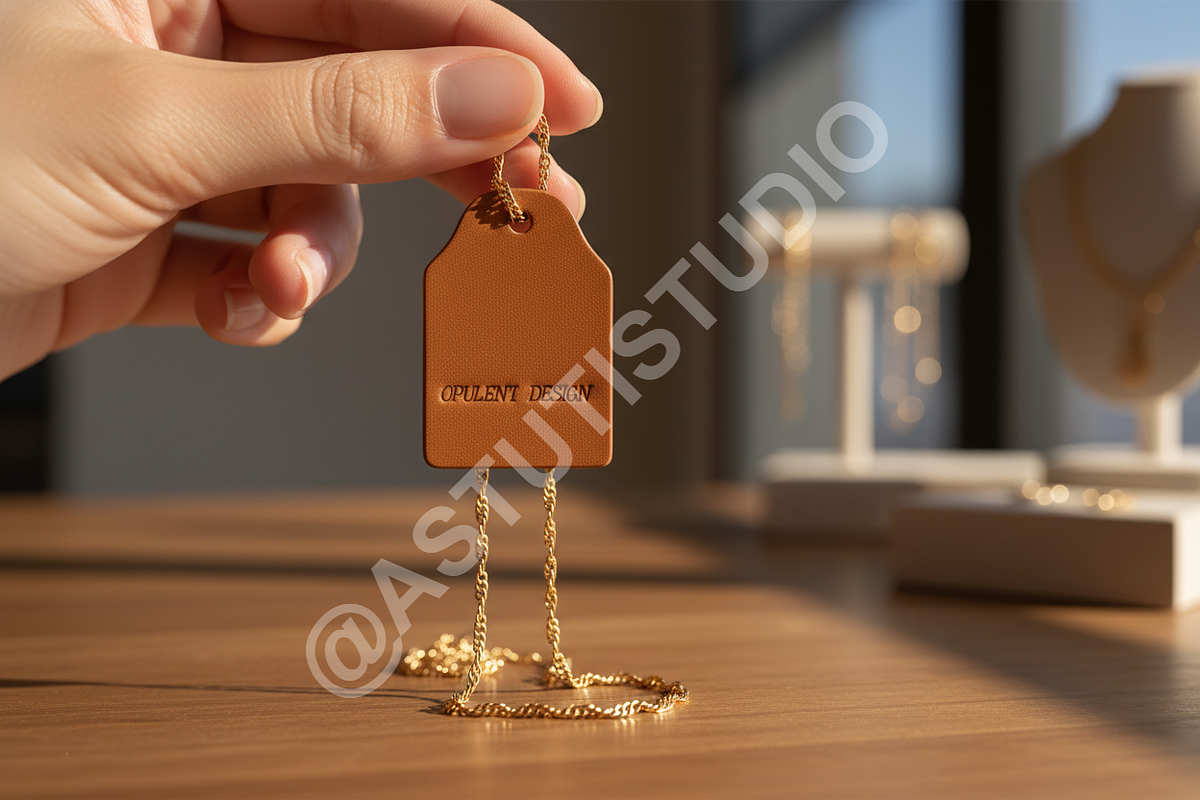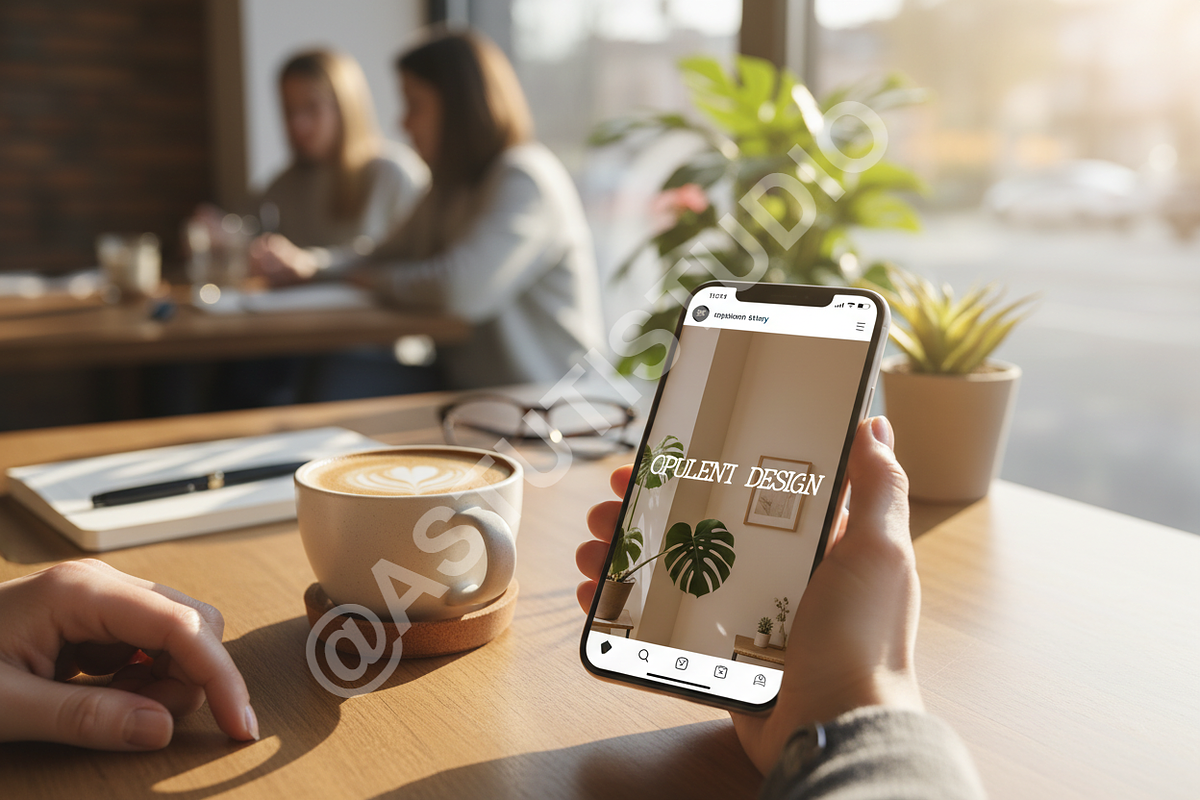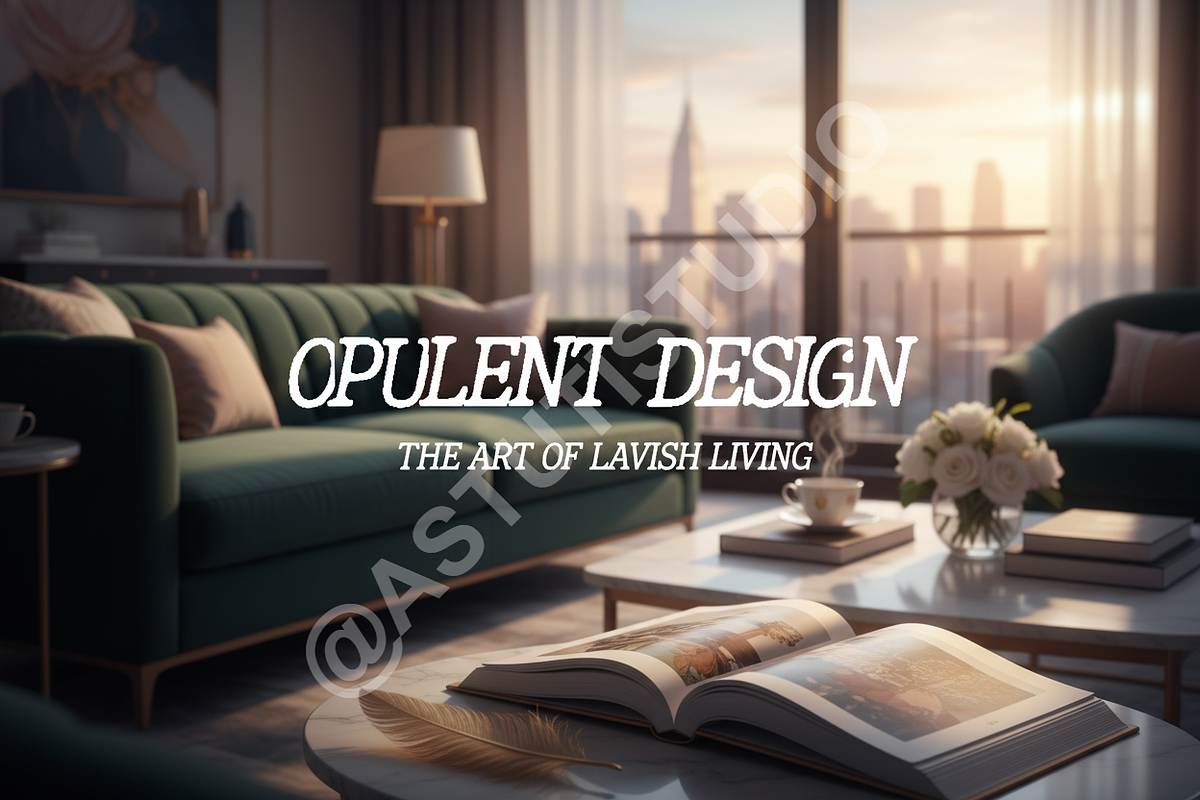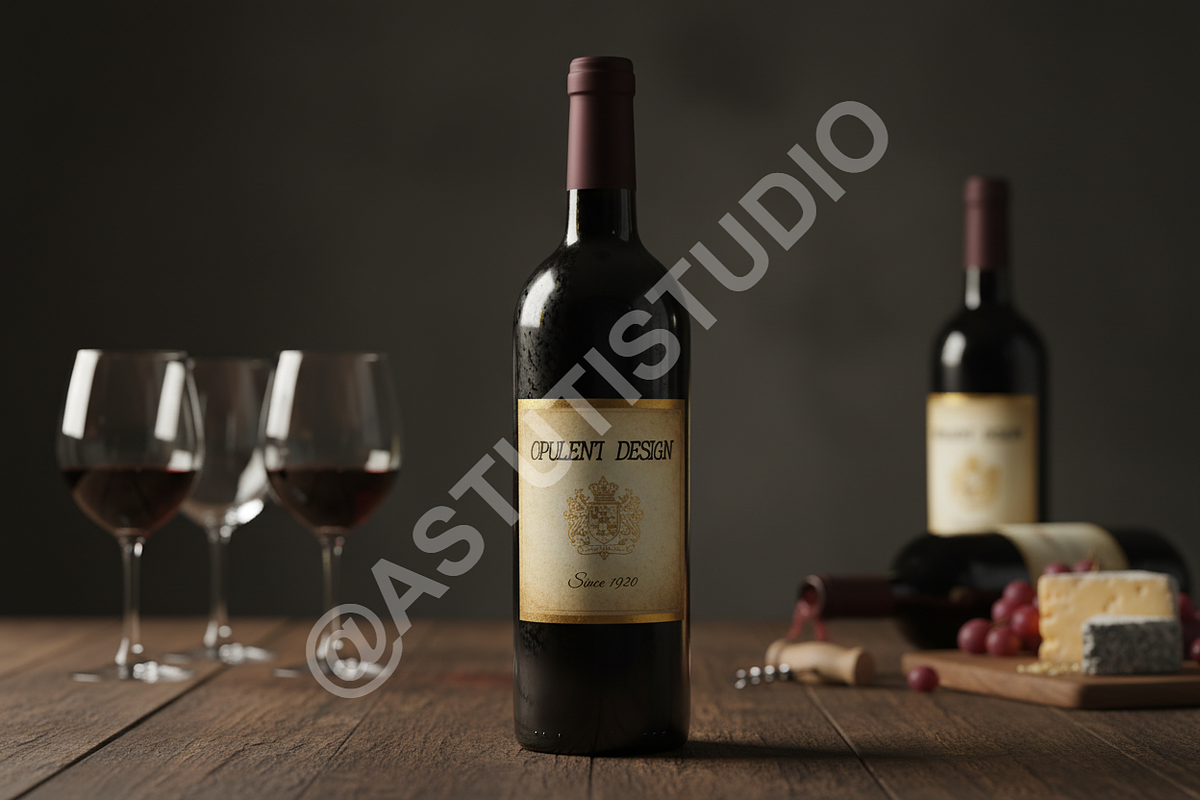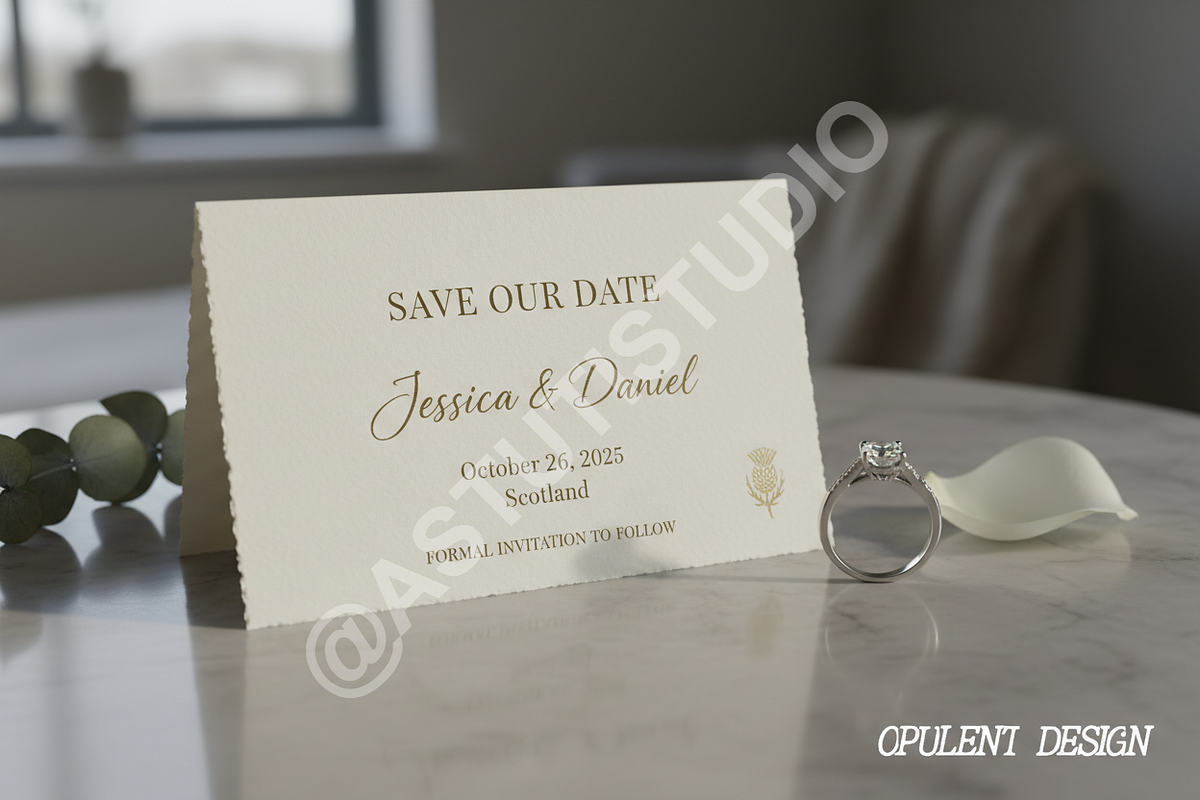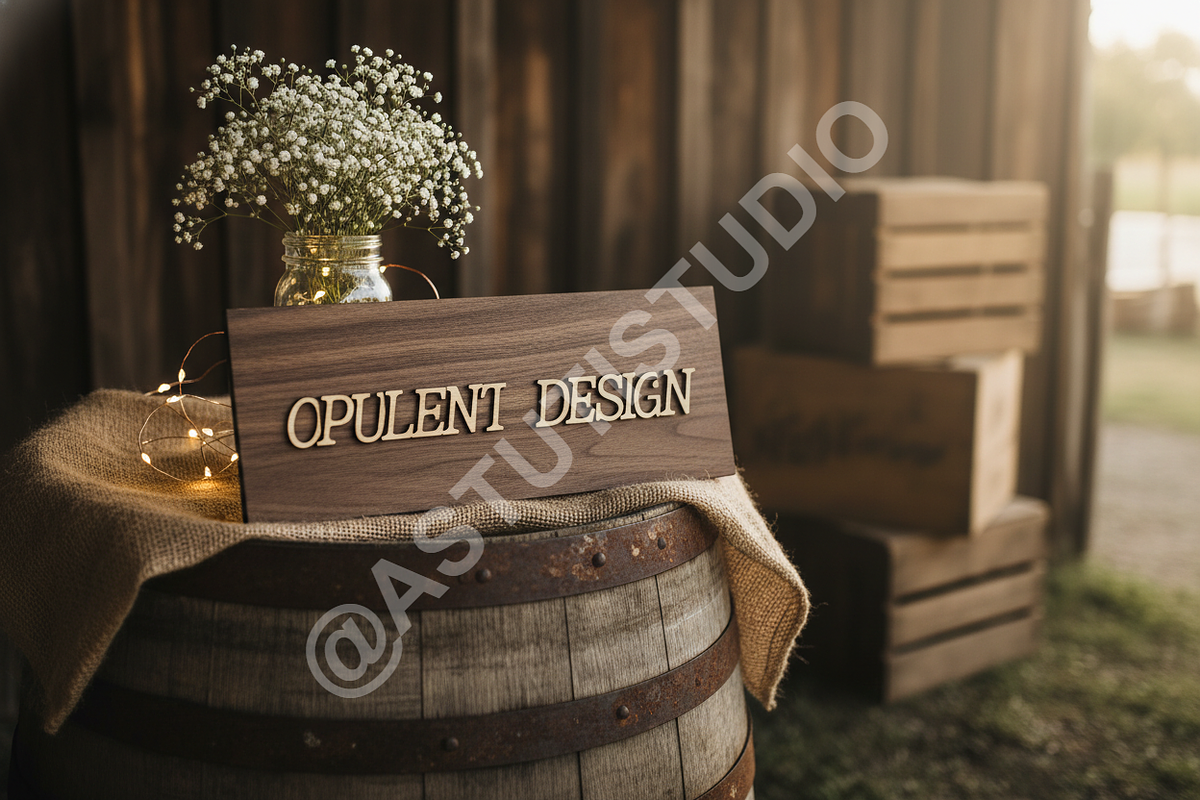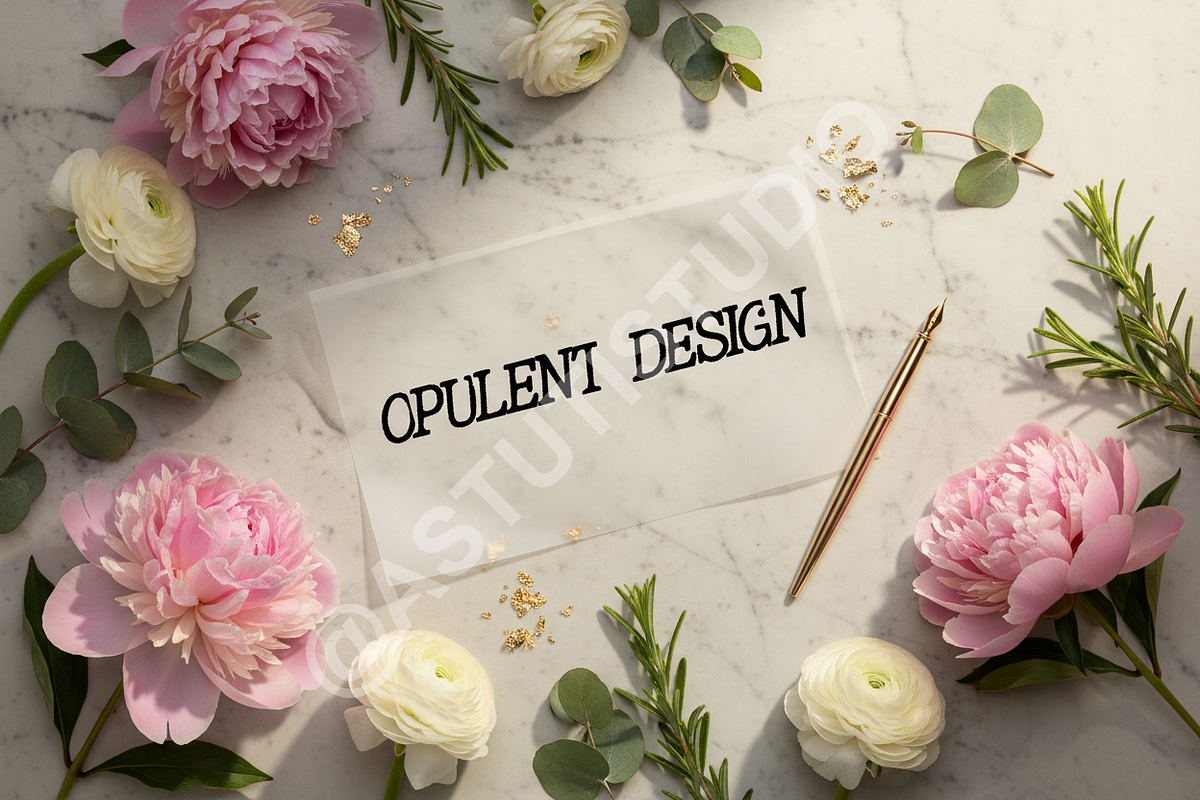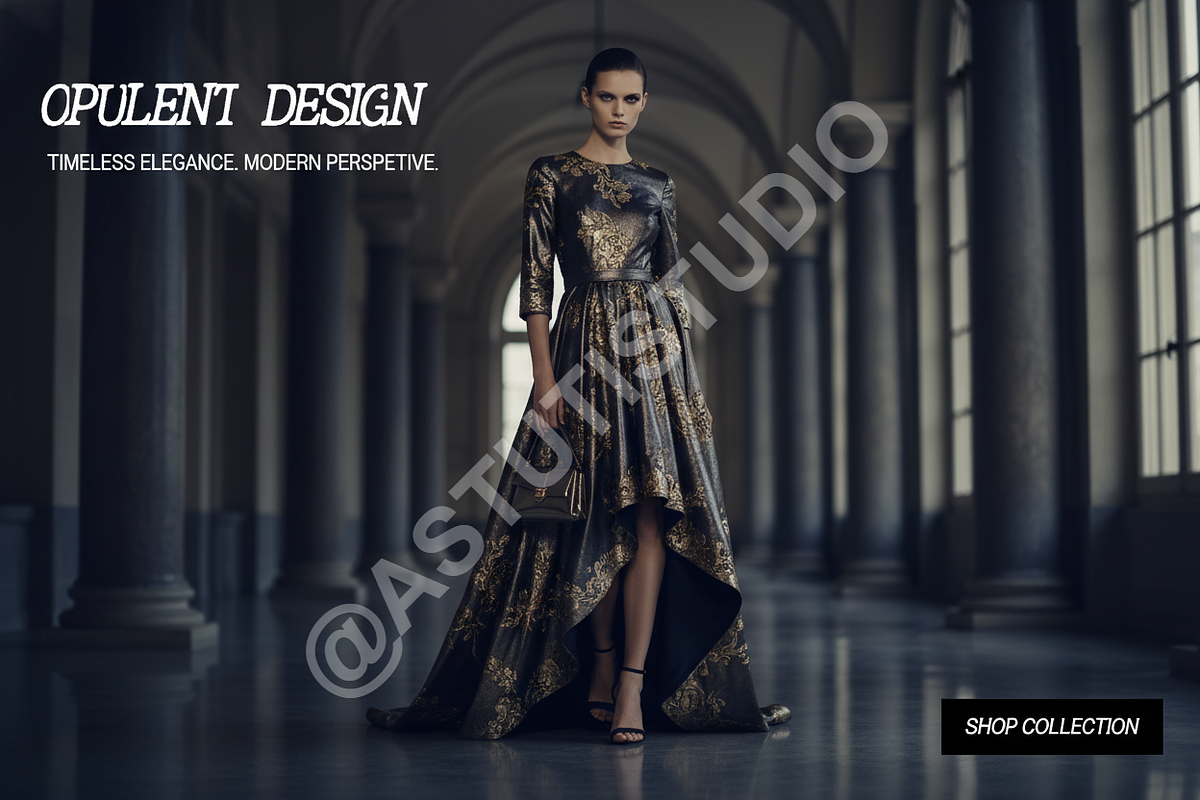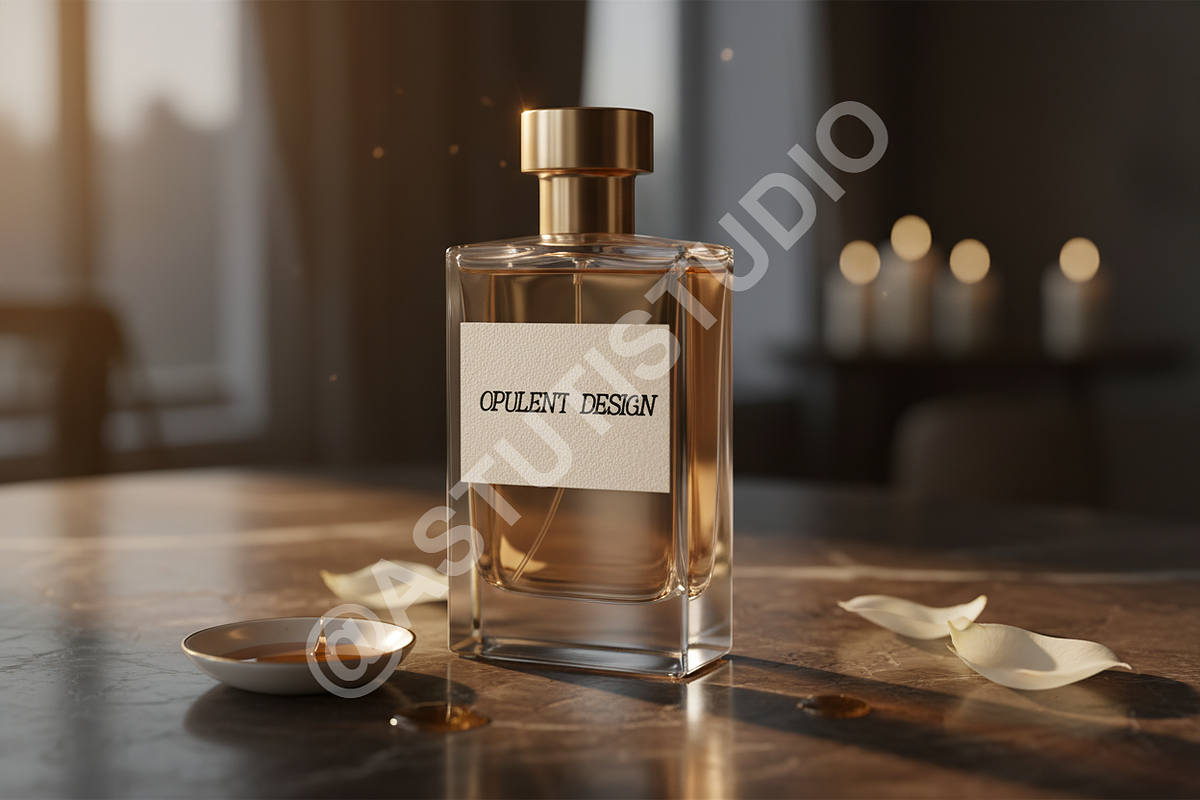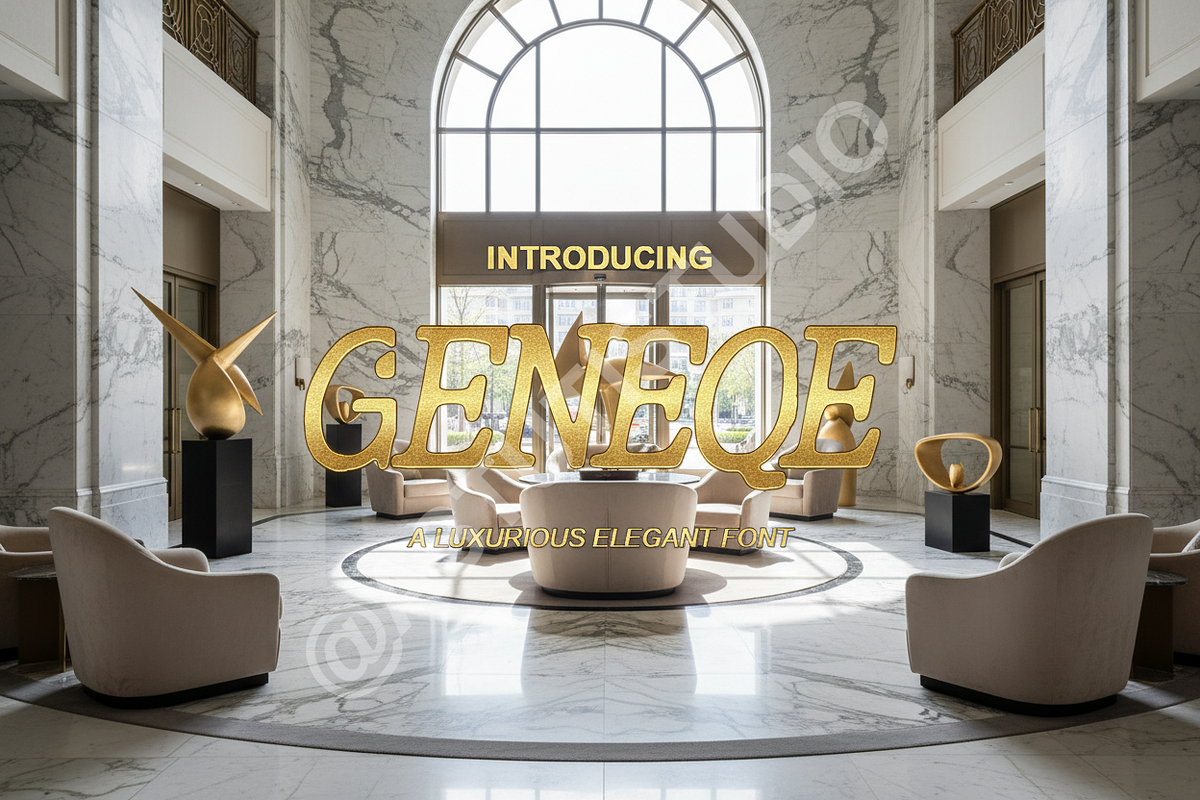
Geneqe – Elegant Modern Sans-Serif T
Introducing Geneqe, an exquisite sans-serif typeface meticulously crafted for sophistication and modern elegance. Designed with the discerning creative in mind, Geneqe embodies a refined aesthetic, making it the quintessential choice for luxury branding, high-end editorial layouts, and impactful social media presence. Elevate your projects with its clean lines, balanced proportions, and timeless appeal.
- Modern Sans-Serif Design: A contemporary yet classic aesthetic that ensures lasting appeal.
- Versatile Application: Perfectly suited for headlines, body text, logos, packaging, and digital interfaces.
- Multilingual Support: Broad language compatibility to reach a global audience.
- Professional Kerning: Meticulously adjusted letter spacing for optimal readability and visual harmony.
- Clean & Elegant: Focus on clarity and a high-end feel, ideal for premium products and services.